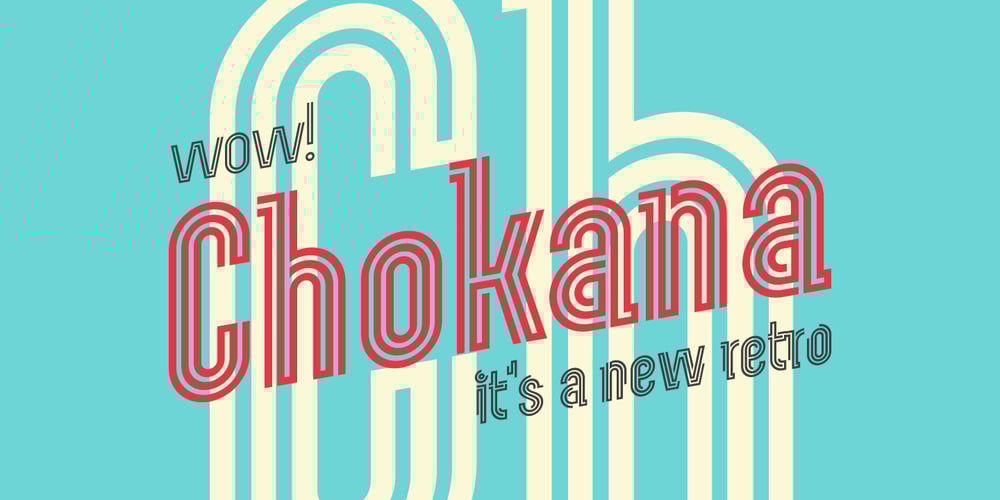
Chokana Font Family was designed by Andriy Dykun and published by NREY. Chokana contains 5 styles and family package options. Introducing Chokana, a nostalgic multi-line font inspired by the 70’s aesthetic. Font looks amazing as alone words and as full text blocks. Also it good for bright captions and unforgettable logos.This font could be the perfect solution if you want to give a lovely retro touch to your designs.If you have any questions, please let me know. Thank you and have a great day!